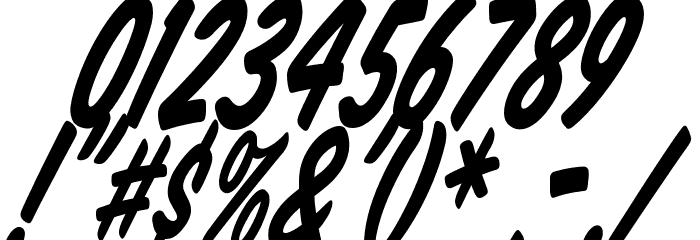
Komika Title - Tilt Font
This font features bold, dynamic characters with a distinct slant, giving it a sense of movement and energy. The letters are thick and rounded, creating a playful and informal appearance. The uppercase and lowercase letters maintain a consistent style, with exaggerated curves and a slightly condensed form. The numbers and special characters follow the same bold and tilted design, ensuring uniformity across all elements. This font is ideal for projects that require a fun and engaging visual impact.
A bold, slanted font with a playful and dynamic style.
- Font: Komika Title - Tilt
- Proposed Projects: Comic books, children's books, posters, and playful branding materials.
- Width: Condensed
- Overall Style: Playful